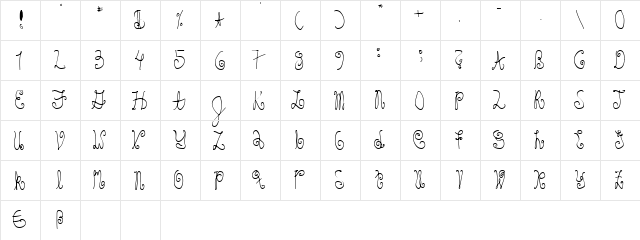
Schosszeit Regular
Design Context for Schosszeit Typeface
Schosszeit is a composed and adaptable typeface that performs quietly and consistently across a wide range of design contexts.